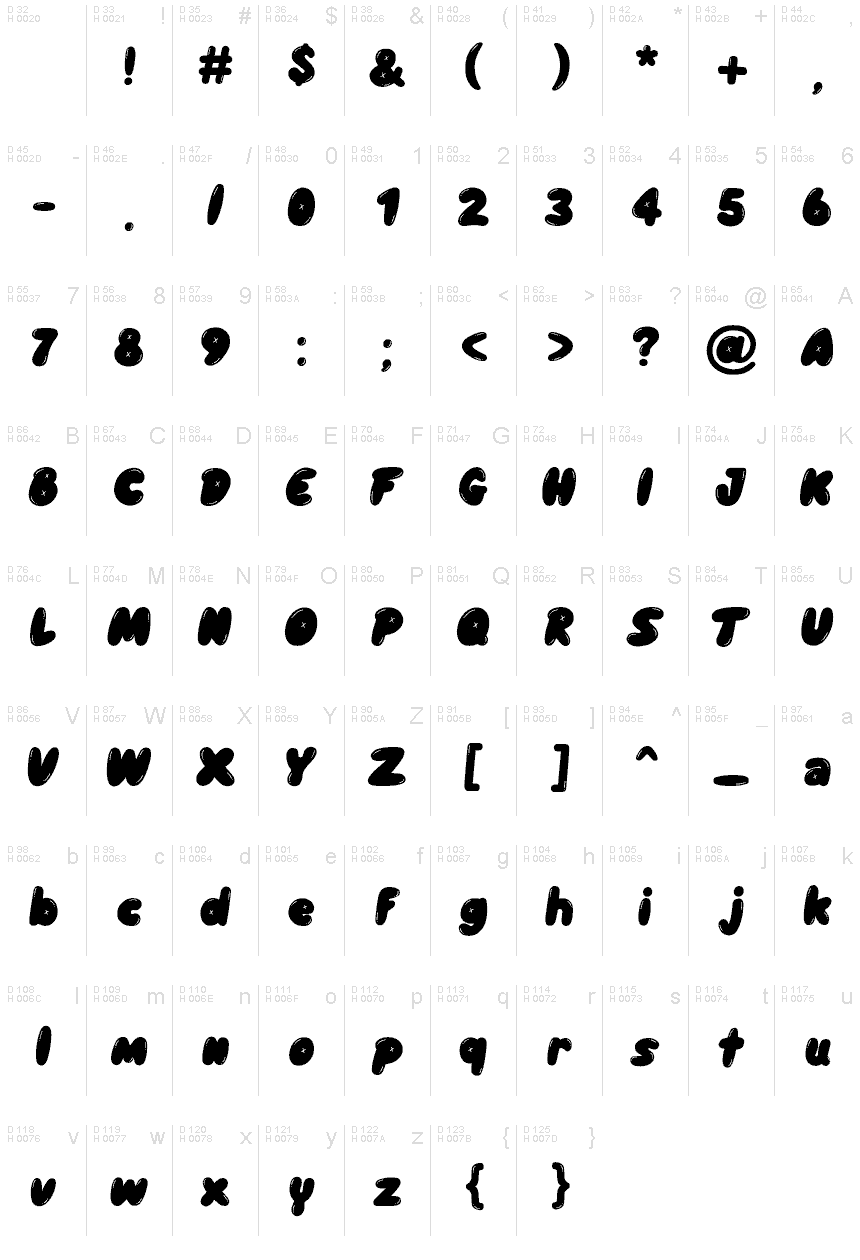
Blopy Font
Blopy font by Excellent Ritma Florendia is a playful bold display font with a cartoonish style. This bubbly, whimsical typeface has an informal and youthful vibe thanks to its organic shapes and retro-modern aesthetic. It was originally inspired by progressive movements from the 60s and 70s, which allows designers to add futuristic vibes to their work.